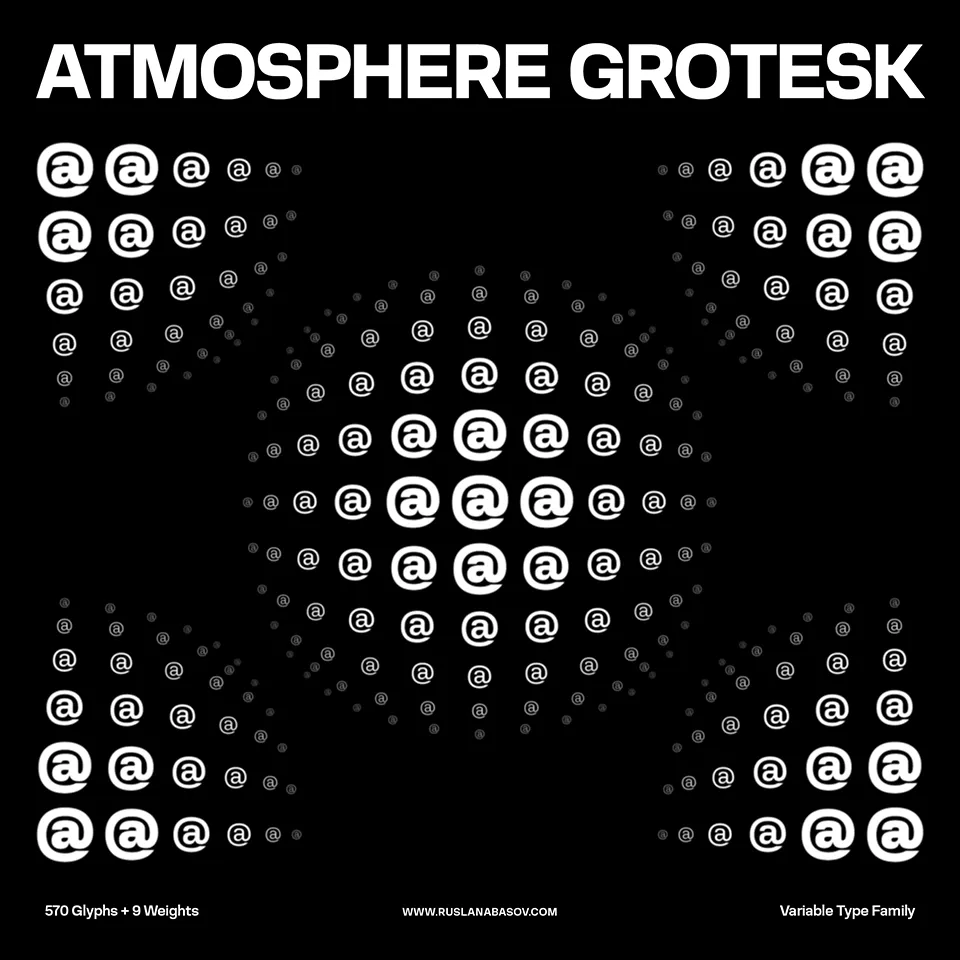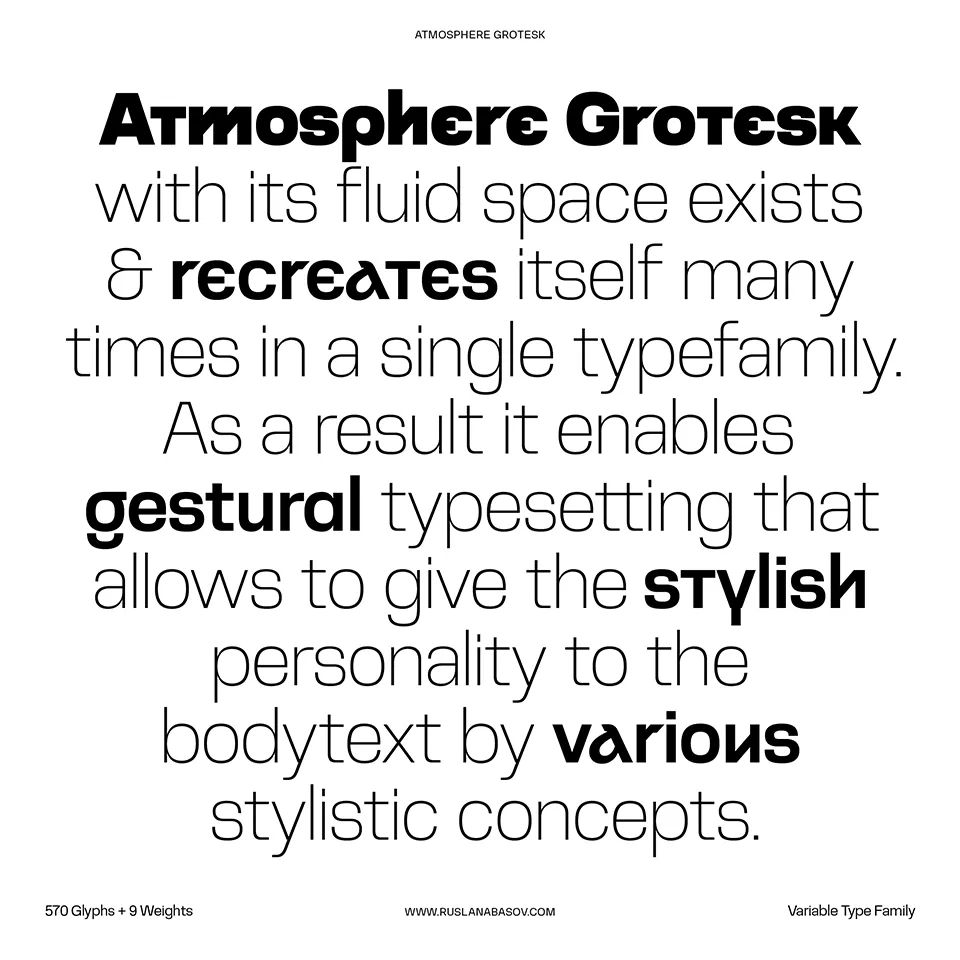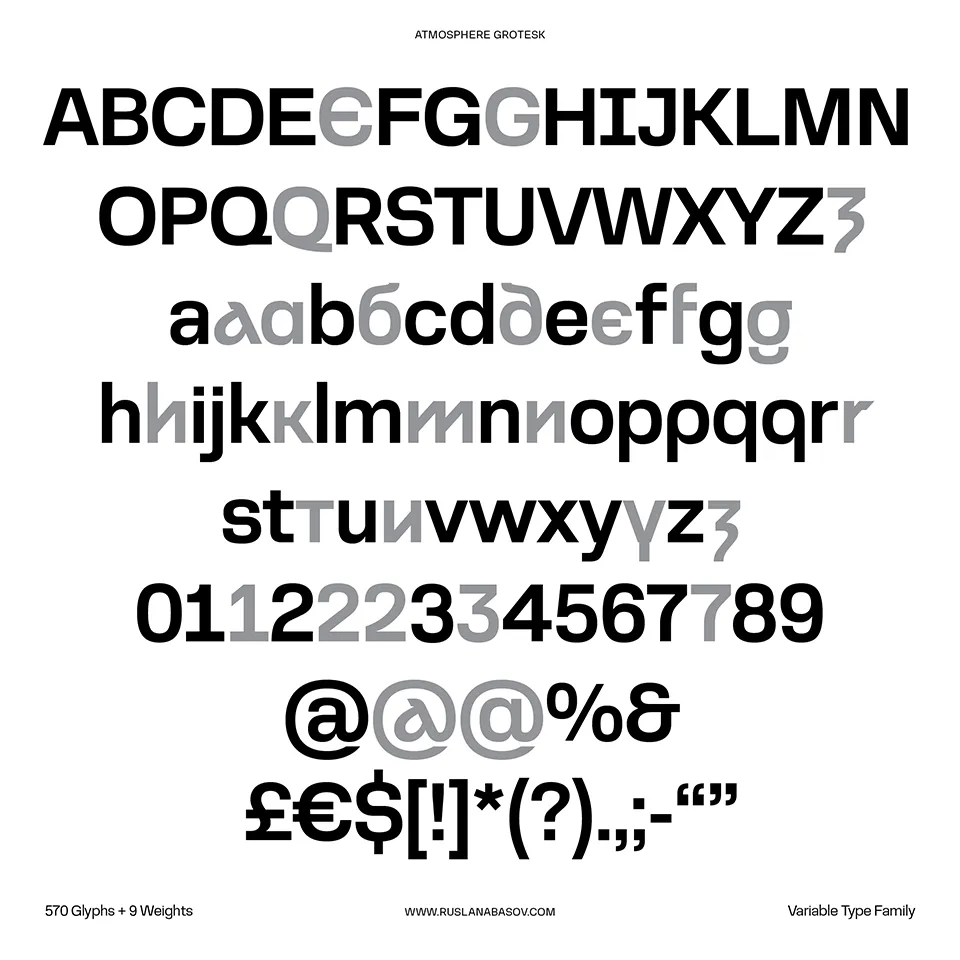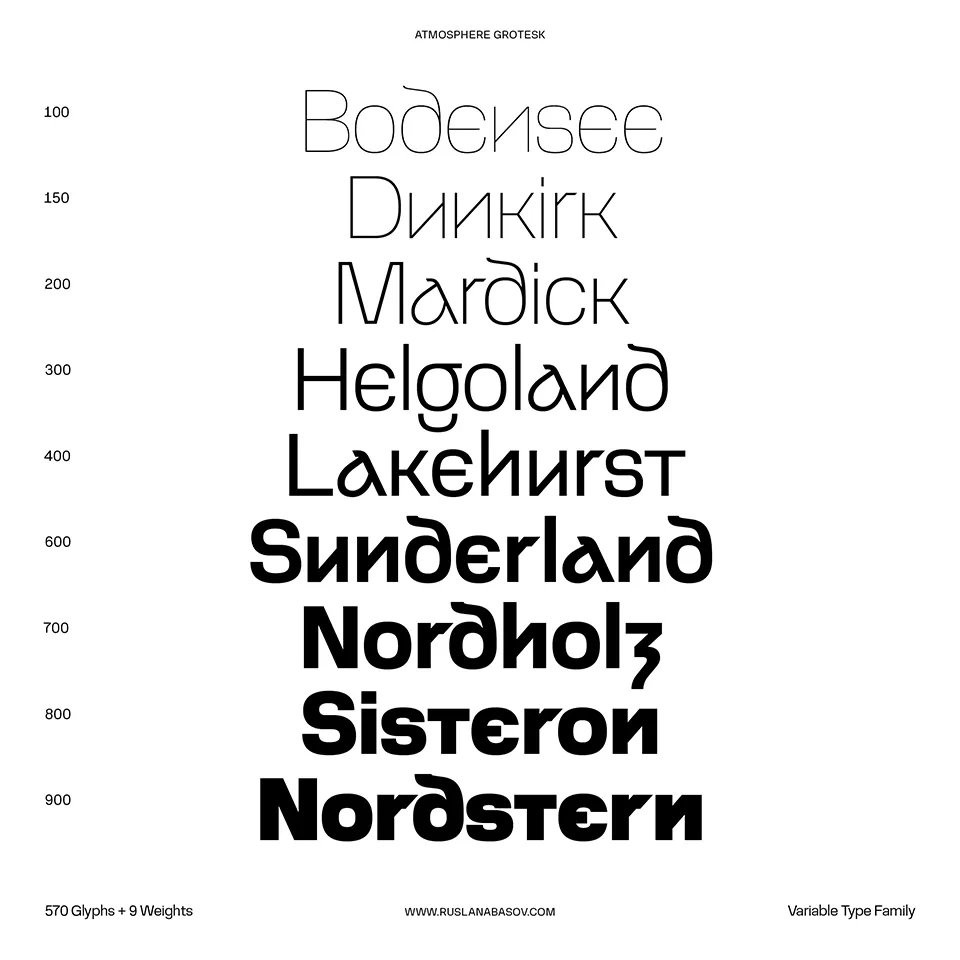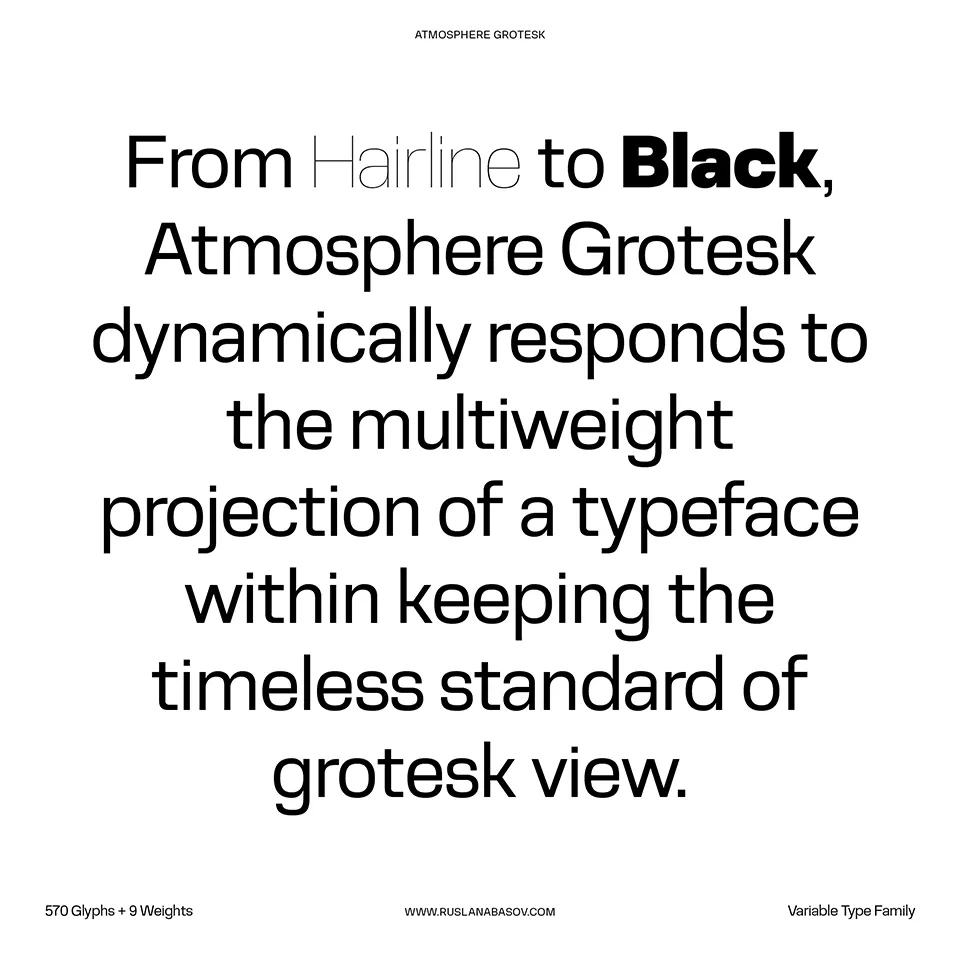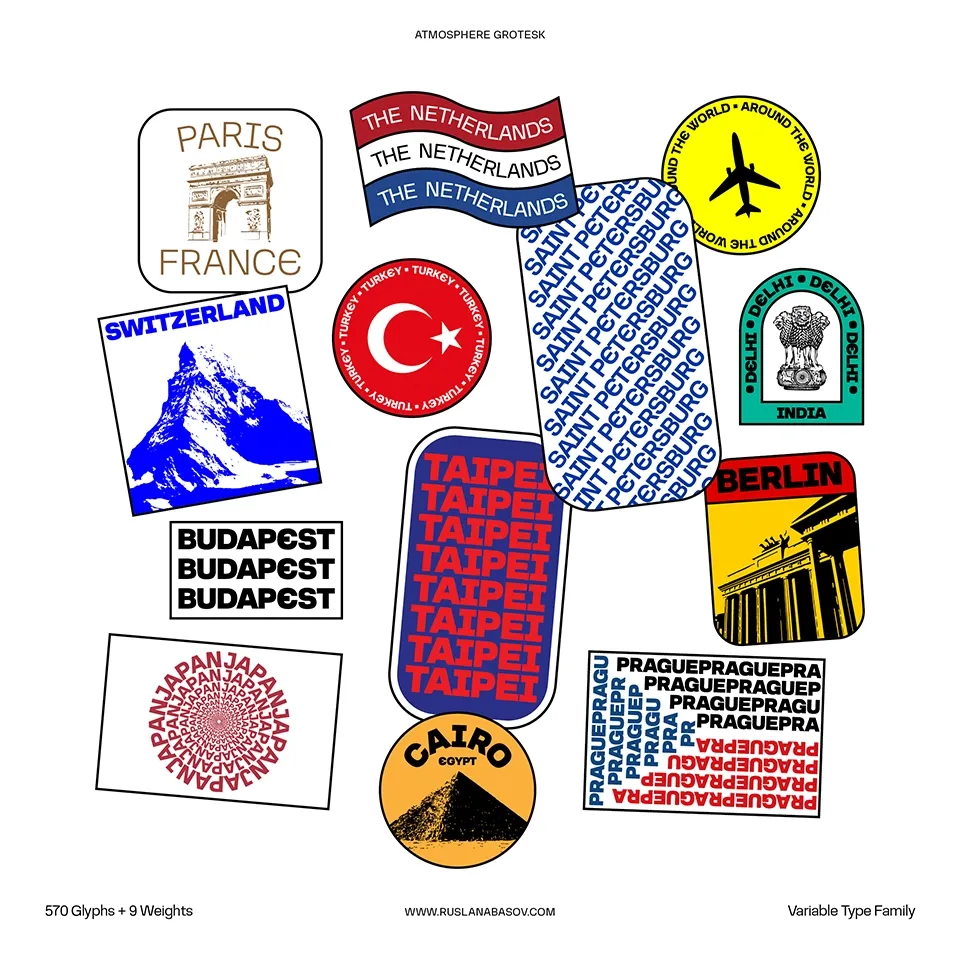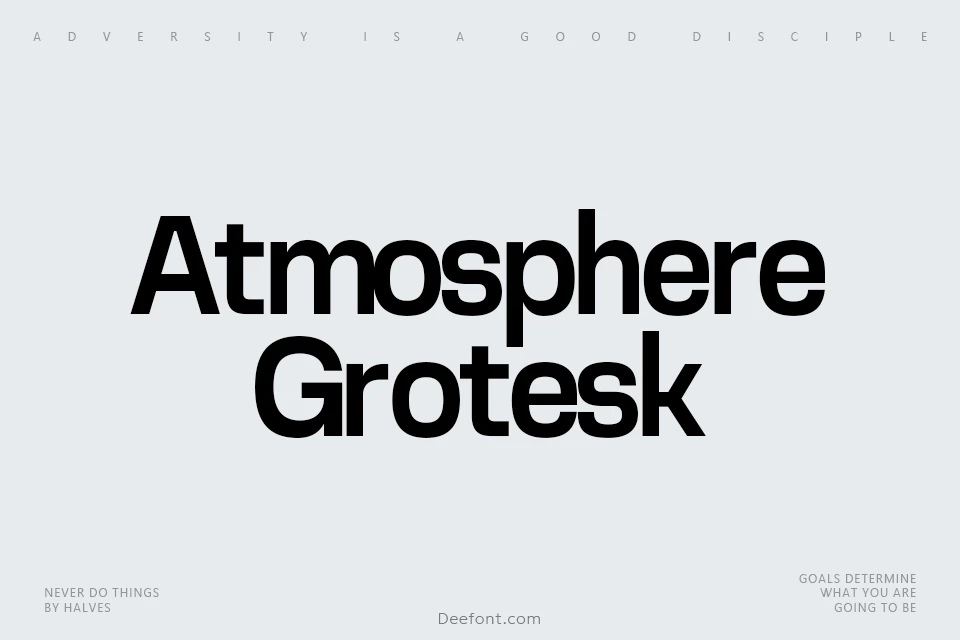
Atmosphere Grotesk Font Family
Atmosphere Grotesk Font Family is a versatile typeface designed by Ruslan Abasov. This font aims to achieve an ideal balance between geometric perfection and visual appeal, resulting in a sharp and precise design that promotes clear communication. As a modern take on the grotesque style, it features clean lines and simple letterforms typical of the genre. Atmosphere Grotesk is a variable font family offering significant flexibility with nine distinct weights and 570 glyphs. Suitable for a wide range of applications, from headlines to text blocks, it brings a contemporary, reliable, and polished aesthetic to any design project.